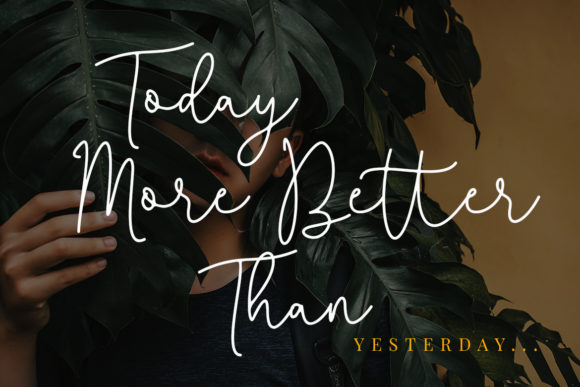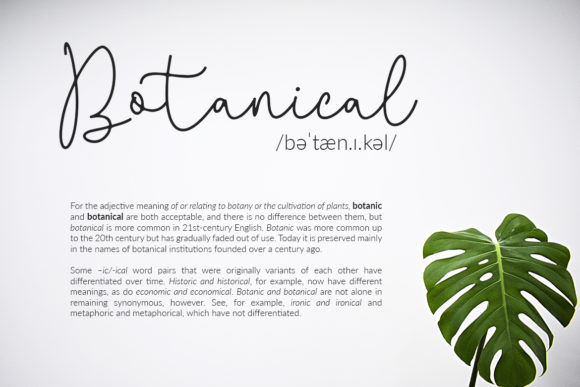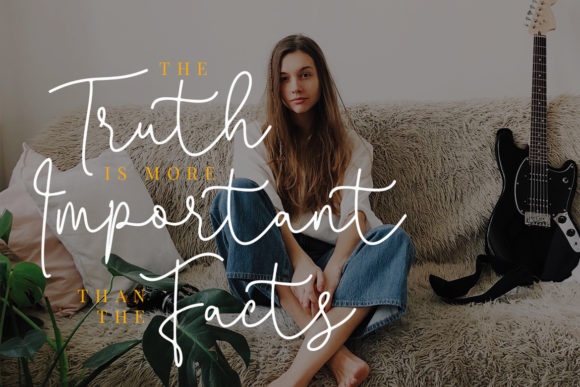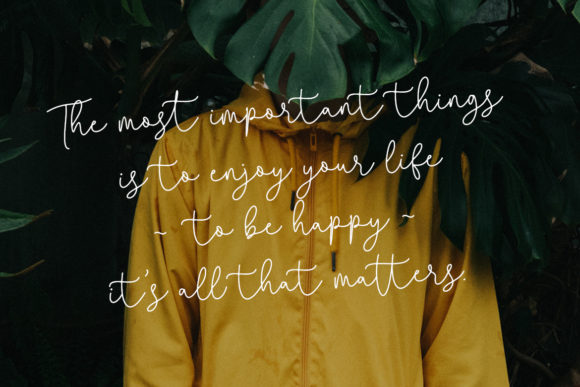
Introduction to Questa Whitte Script Font
The Questa Whitte is a handwritten signature script with a quick and speedy pacing.
Its handwritten look can really freshen up your projects It’s perfect for branding projects, logos, wedding designs, social media posts, advertisements, product packaging, product designs, labels, photography, watermarks, invitations, stationery and any other project that needs a handwriting taste.